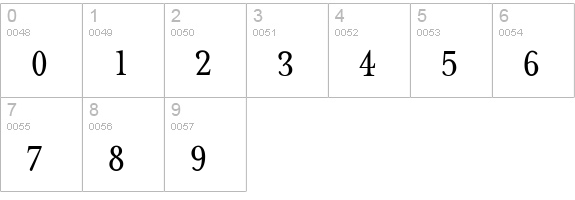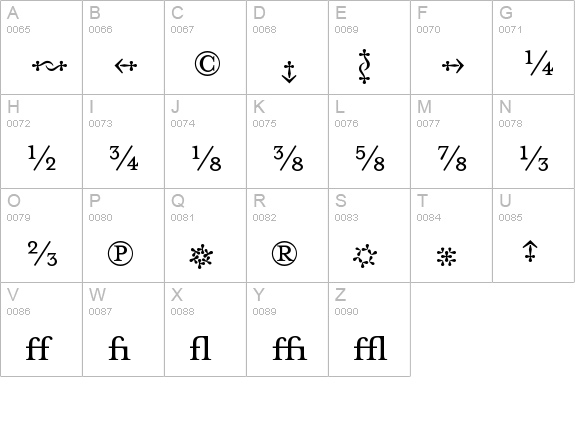
MrsEavesFractions Font Details
MrsEavesFractions is a charming and elegant font that adds a touch of sophistication to any design project. This versatile typeface is perfect for creating eye-catching titles, headlines, and body text that demand attention. With its delicate serifs and graceful curves, MrsEavesFractions exudes a sense of timeless beauty and refinement. What sets MrsEavesFractions apart is its unique ability to seamlessly blend modern design aesthetics with classic typographic elements. The result is a font that is both contemporary and timeless, making it perfect for a wide range of applications. Best of all, MrsEavesFractions is available for free download at FontsMarket.com. Whether you're a professional designer looking for a new font to add to your collection or a hobbyist experimenting with different typefaces, MrsEavesFractions is sure to inspire your creativity and elevate your designs to new heights. Download it today and start creating beautiful and impactful typography with ease.